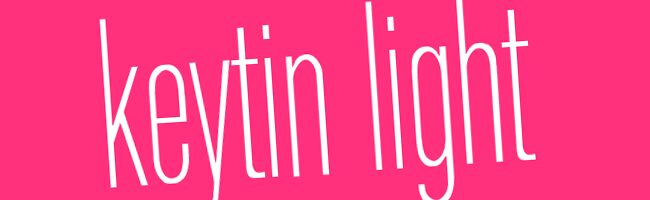
Keytin by Daniel Kratky of Themnific is a free ultra-condensed sans serif with towering proportions and a crisp, fashion-minded air. Rounded bends soften the otherwise severe hairline construction.
Fashion branding and music posters both benefit from its lean silhouette, though each uses that elegance differently. It can also bring a refined editorial note to magazine covers and event programs. The design is best suited to audiences drawn to minimalist contemporary typography.